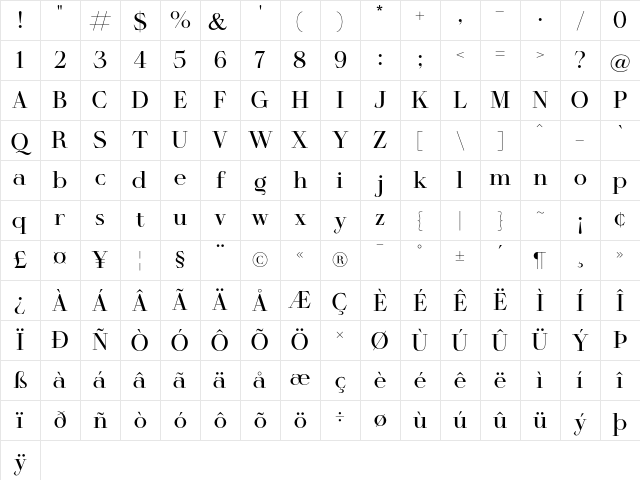
Complete HARMONY Medium glyph index. Displaying only characters natively supported by HARMONY Medium font.
HARMONY is a composed and adaptable typeface that performs quietly and consistently across a wide range of design contexts.